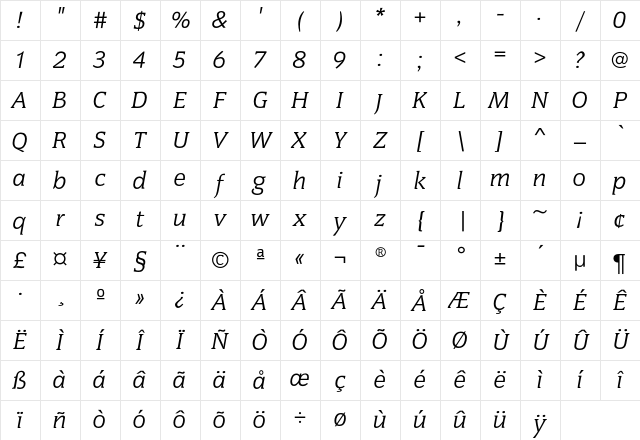
Complete CongressEF RegularItalic glyph index. Displaying only characters natively supported by CongressEF RegularItalic font.
CongressEF is a composed and adaptable typeface that performs quietly and consistently across a wide range of design contexts. The slanted form adds forward momentum and visual energy.